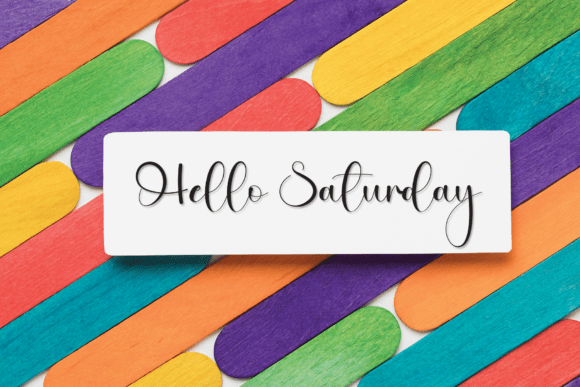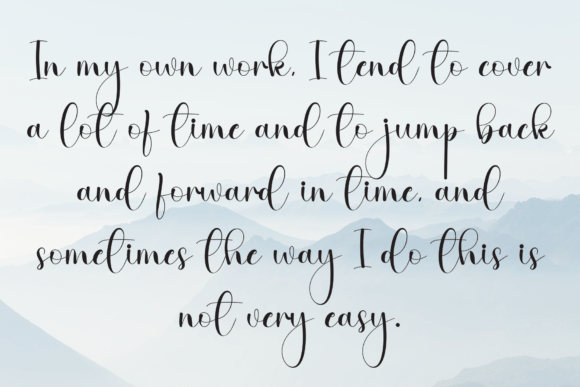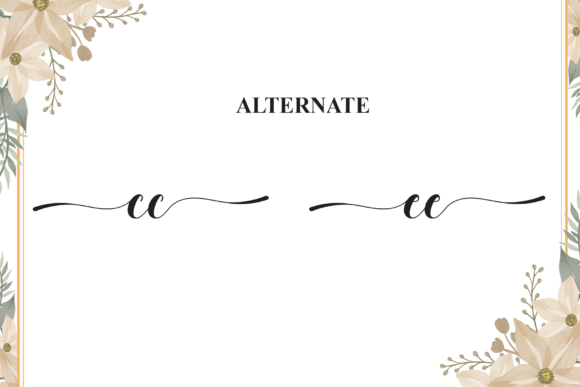
The Elegance of Evelyne: A Simple yet Stunning Handwritten Font
I’ll never forget the moment I stumbled upon the Evelyne font while working on a wedding stationery project for a dear friend. I had been searching for the perfect font for weeks, but nothing seemed quite right. That was until I saw Evelyne – with its wide, airy letterforms and extended horizontal swashes, it instantly conveyed the sense of calm and sophistication I was looking for. In this article, I’ll share my experience with Evelyne, its features, and how to make the most of this beautiful font.
A Personal Review of Evelyne
- ✨ The elegant, understated personality of Evelyne makes it perfect for minimalist designs.
- ✅ The font’s wide letterforms and swashes create a sense of calm and sophistication.
- ✅ Evelyne is PUA-encoded, allowing effortless access to all glyphs, swashes, and alternate characters.
- ✅ The font is incredibly versatile and can be used for a variety of projects, from wedding stationery to lifestyle blogs and organic beauty branding.
While Evelyne is an amazing font, there are a few things to keep in mind:
- ⚠️ The font’s minimalist approach might make it less suitable for bold or attention-grabbing designs.
- ⚠️ Some users might find the font’s subtle features require a bit of practice to master.
The Story Behind Evelyne
Evelyne’s design inspiration comes from the world of minimalist fashion and elegant stationery. The font’s creator aimed to craft a typeface that exudes calmness and sophistication, perfect for designs where subtlety is key. Although the actual designer’s story might be unknown, it’s clear that Evelyne has become a favorite among designers and crafters for its understated beauty.
Q: What makes Evelyne suitable for wedding stationery?
A: Evelyne’s elegant and understated personality makes it perfect for wedding stationery, as it adds a touch of sophistication and romance to any design.
Q: Is Evelyne a difficult font to learn?
A: While Evelyne has some unique features, it’s relatively easy to learn and use, especially for those familiar with OpenType fonts.